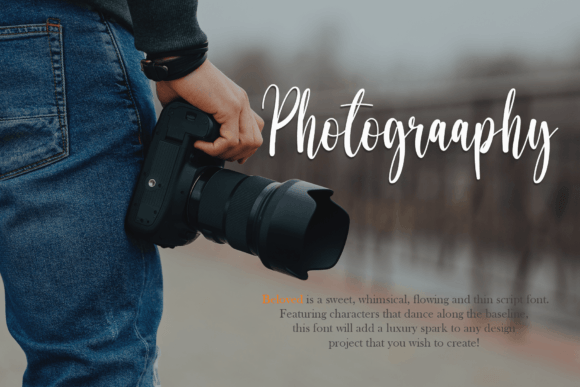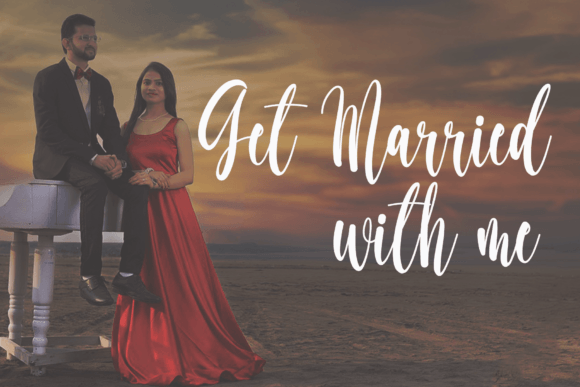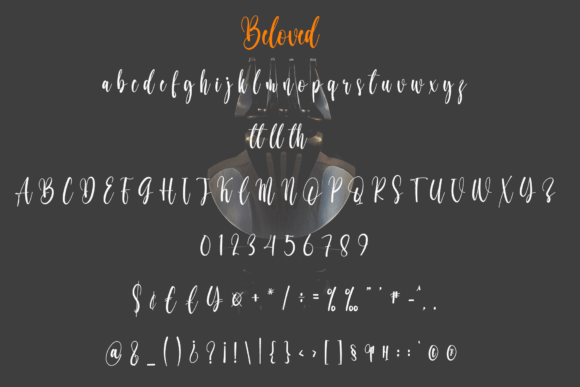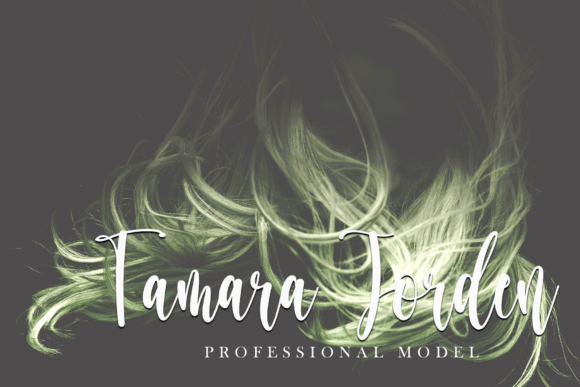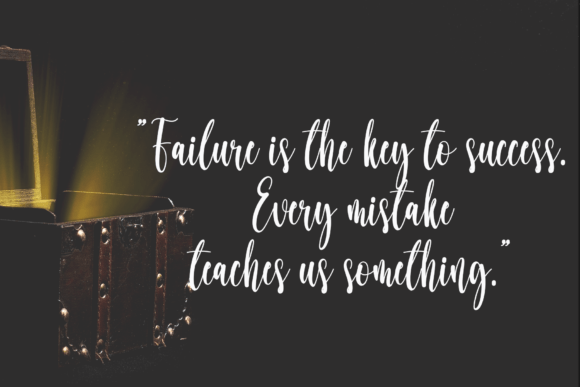
The Quest for the Perfect Font: Discovering Beloved
I’ll never forget the design project that led me to Beloved, an elegant handwritten font that has since become a staple in my creative toolkit. I was working on a branding project for a luxury boutique, and I needed a font that exuded sophistication and whimsy. Hours of scouring font libraries and testing different options left me frustrated and font-fatigued. That’s when I stumbled upon Beloved, and it was love at first sight! ✨
An Honest Review of Beloved
- ✨ Elegant and refined, with a touch of playfulness
- ✅ High level of detail, making it perfect for high-end designs
- 🔥 Support for OpenType features, glyphs, and stylistic alternates
While Beloved is an exceptional font, there are a few minor quirks to be aware of: ⚠️
- 🤔 Some users may find the font’s elegance and detail make it less suitable for very small font sizes or body text.
- ⚠️ Limited support for non-English characters, so double-check compatibility before use.
The Story Behind Beloved
Beloved was designed by a talented type designer who drew inspiration from classic calligraphy and modern digital art. The goal was to create a font that combined elegance and sophistication with a touch of playfulness. The result is a beautiful, high-detail font that’s perfect for a wide range of creative projects.
| Font Name | Beloved Font |
| Author | Creatype Designer |
| What makes Beloved unique? | Beloved’s unique blend of elegance, detail, and playfulness makes it stand out from other fonts. |
| Is Beloved suitable for body text? | While Beloved is an elegant font, it’s best suited for headlines, titles, and short text passages. For body text, consider a more legible font. |